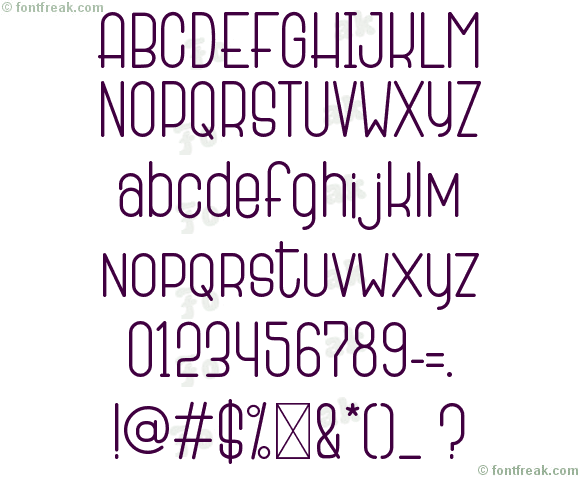
Home Away
About Home Away
The "Home Away" font by Eknoji Studio is a captivating display typeface that beautifully blends modern aesthetics with a touch of whimsy. As a sans-serif font, it boasts clean lines and a contemporary look, making it suitable for a variety of design applications. The font features a balanced stroke weight that contributes to its legibility, while the gentle curves and rounded edges create a friendly and approachable vibe. With its well-proportioned spacing, "Home Away" ensures that each letter stands out, making it a perfect choice for eye-catching headlines and titles.
This versatile font excels in several specific use cases, including wedding invitations, where its inviting character can set a warm tone for special occasions. It also works wonderfully for restaurant menus, lending an informal yet stylish flair that can enhance the dining experience. Additionally, "Home Away" is ideal for marketing materials aimed at small businesses, such as flyers and promotional posters, where establishing a connection with the audience is key. Content creators will find it useful for blogs and social media graphics, as it conveys a sense of authenticity and approachability.
Targeting graphic designers, small business owners, and content creators, "Home Away" is a font that resonates across various demographics. Its versatility and unique design make it an attractive option for those seeking to create memorable and engaging visual content.
The standout quality of the "Home Away" font lies in its ability to evoke a sense of comfort and familiarity, while still maintaining a modern edge. Its distinctive design ensures that any project featuring this font will not only be visually appealing but also convey a heartfelt message. For those interested in incorporating this delightful typeface into their work, the "Home Away font free download" provides an excellent opportunity to elevate your designs.